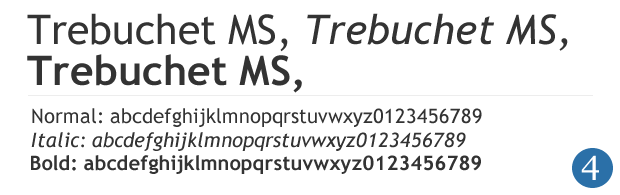
Trebuchet Ms Font Css
Trebuchet Ms Font Css. Trebuchet takes its inspiration from the sans serifs of the 1930s which had large x heights and round features intended to promote readability on signs. Best web safe fonts for html and css.
These fonts support the basic latin character set. Each font is unicode™ encoded, and available in d. Trebuchet ms was the font used for the window titles in the windows xp default theme, succeeding ms sans serif and tahoma.
Trebuchet takes its inspiration from the sans serifs of the 1930s which had large x heights and round features intended to promote readability on signs. Here the x may be a single or multiple set of values separated by comma, and should be defined using following: We provide the font in zip formats that can easily be extracted and after that it will appears.
The Typeface Name Is Credited To A Puzzle Heard At Microsoft, Where The Question Was Asked, Could You Build A Trebuchet (A Form Of Medieval Catapult) To Launch A Person From The Main Campus To The Consumer Campus, And How? The Trebuchet Fonts Are Intended To Be The Vehicle That Fires Your Messages Across The Internet.
Trebuchet, designed by vincent connare in 1996, is a humanist sans serif designed for easy screen readability. The following fonts are the best web safe fonts for html and css: November 21, 2021 by eduard hoffmann.
In firebug it just shows. This typeface can be utilized on both small and large screen displays. Released free of charge by microsoft as part of their core fonts for the web package, it remained one of the most.